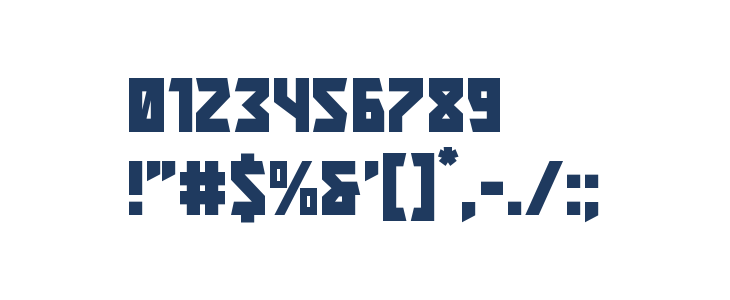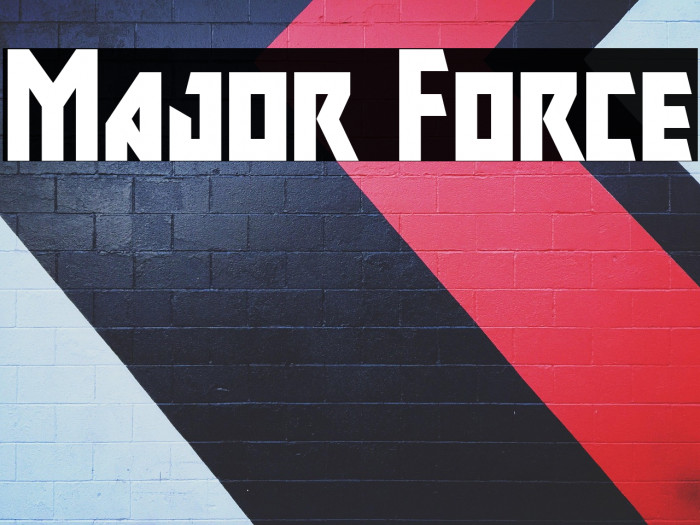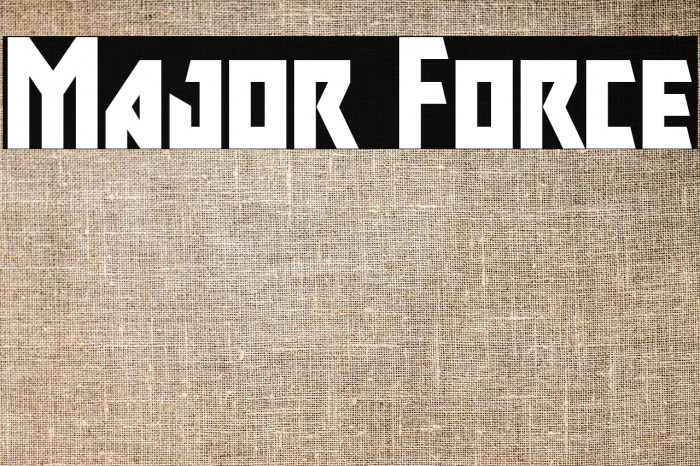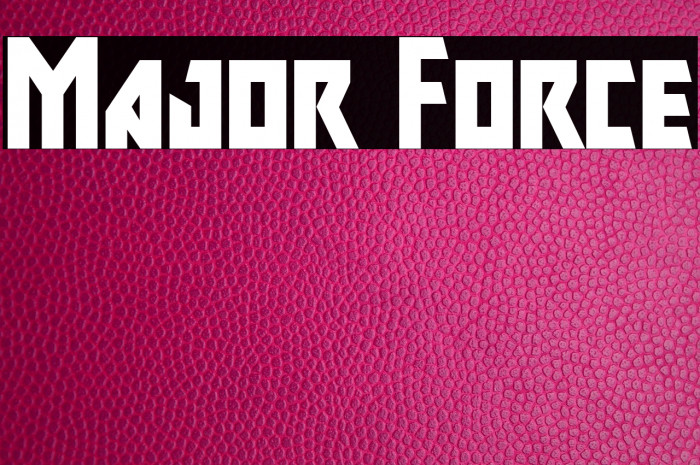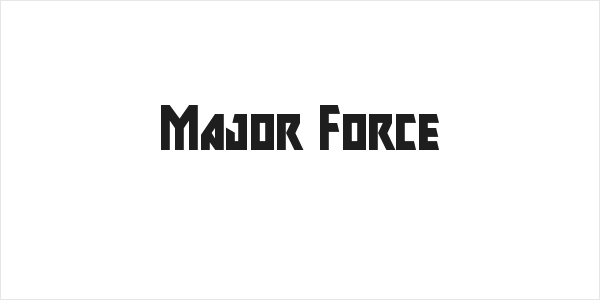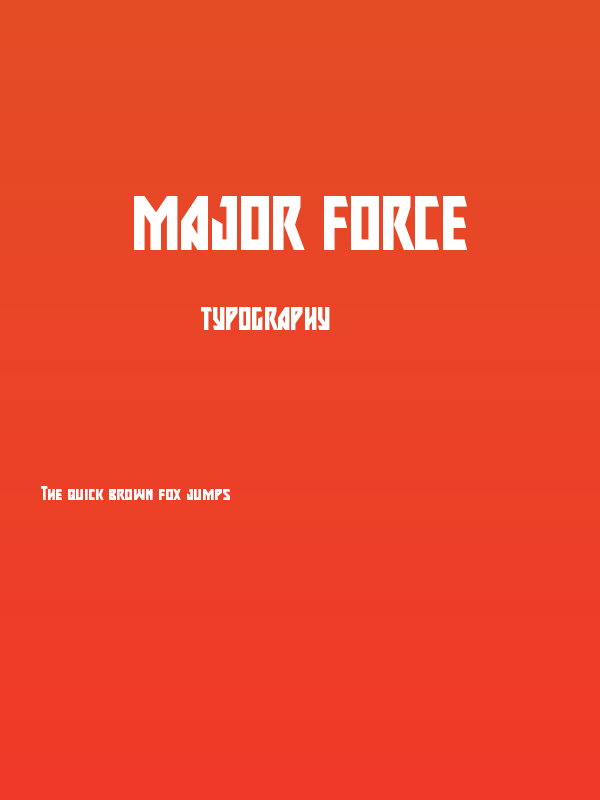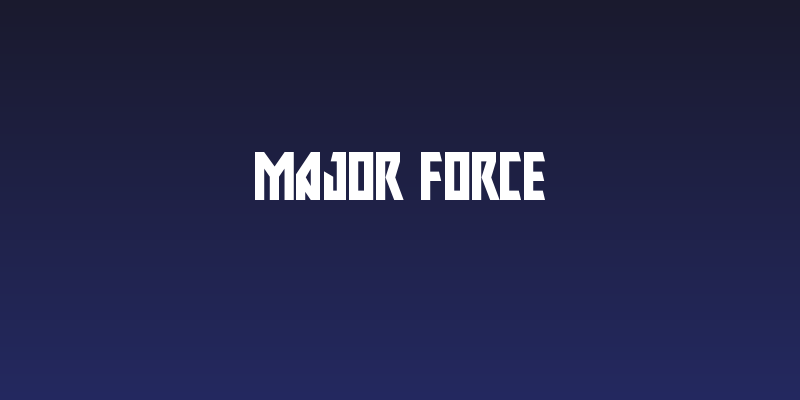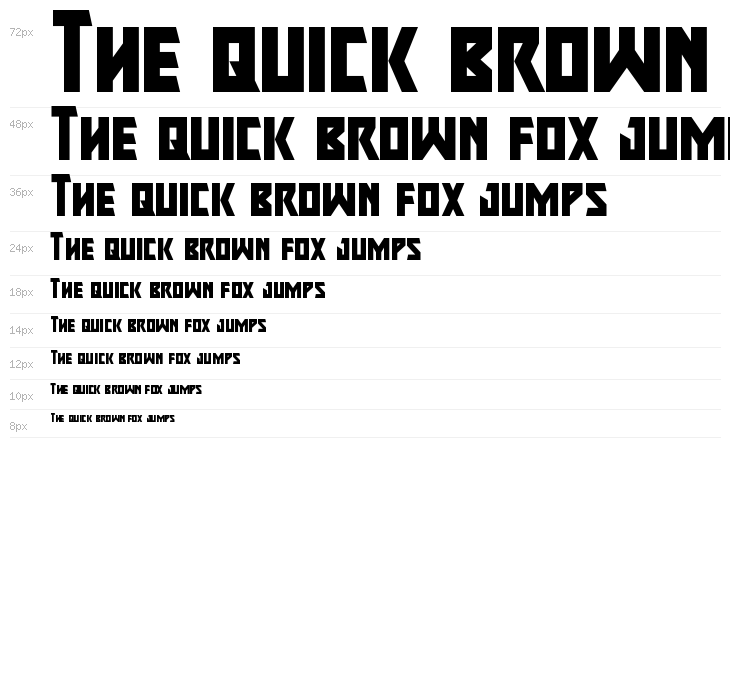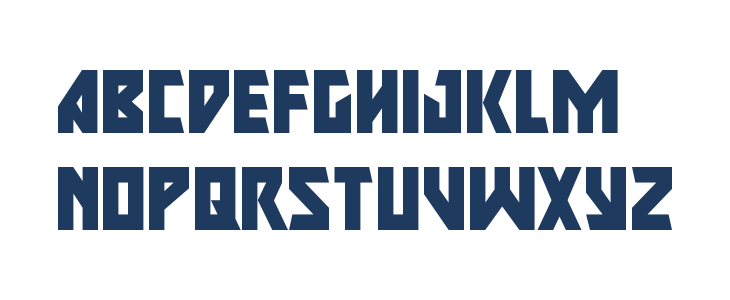
Major Force Font
Major Force Description
This font features a bold and geometric design with sharp angles and a strong presence. The uppercase letters are uniform in height, creating a cohesive and structured appearance. The characters have a blocky, angular style that conveys a sense of power and modernity. The numbers and special characters maintain this bold aesthetic, ensuring consistency across all glyphs. The font's design is reminiscent of futuristic or industrial themes, making it suitable for projects that require a strong visual impact.
| Proposed Projects | Ideal for branding, posters, video game graphics, and any project requiring a strong, impactful typeface. |